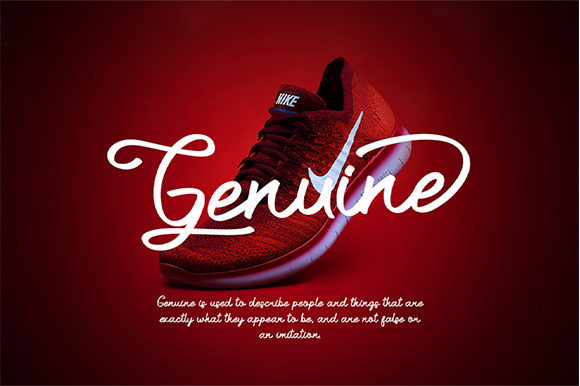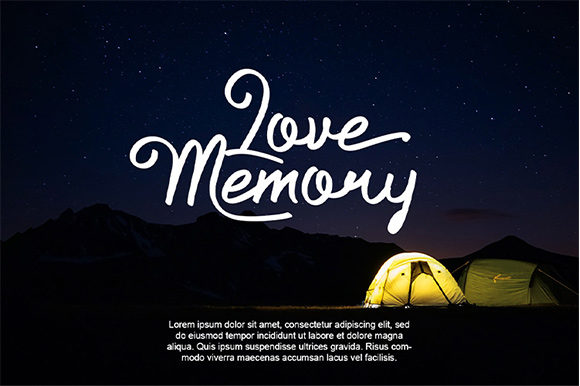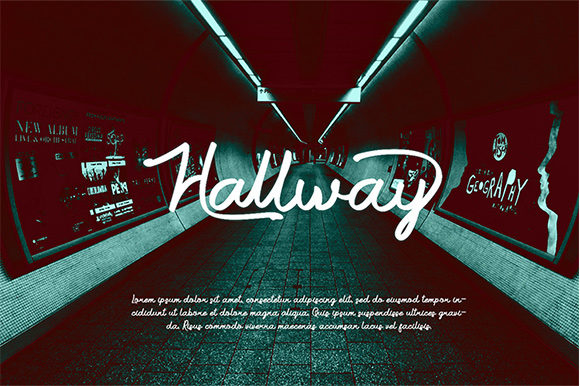
Introduction to Barcelona Rose Font
Have you ever been working on a creative project and suddenly, you’re stuck on the perfect font? The one that captures the essence of your design and makes it truly stand out? For designers, finding the right font can be a game-changer. It’s the difference between a design that’s just okay and one that’s truly exceptional.
| 👤 Author | Nico Muslib |
That’s where the Barcelona Rose Font comes in – a magical script font that’s sure to elevate any design project. With its timeless elegance and authentic calligraphy, this font is a valuable resource for designers looking to add a touch of sophistication to their work. Whether you’re working on a branding project, a wedding invitation, or a creative campaign, the Barcelona Rose Font is a high-quality addition that’s sure to impress.
One of the best things about the Barcelona Rose Font is its versatility. With a transparent background, it can be easily layered over images or used as a standalone element. And, as a free download, it’s accessible to designers of all levels. Whether you’re a seasoned pro or just starting out, the Barcelona Rose Font is a valuable design resource that’s sure to inspire your next creative project.
Key Features of Barcelona Rose Font
- High-quality, elegant design perfect for a creative project
- Designed with a unique, romantic flair, making it ideal for wedding invitations, greeting cards, and other special occasions
Honest Review: Barcelona Rose Font
I recently stumbled upon the Barcelona Rose Font, and I’m excited to share my honest thoughts on this design resource. This beautiful font is perfect for adding a touch of elegance to any creative project.
What works well: ✨ The Barcelona Rose Font boasts a stunning, hand-drawn design with delicate floral elements and intricate details. The high-quality vector graphics make it easy to scale and manipulate, ensuring that your designs will look great on any medium. Additionally, the font’s transparent background makes it a breeze to work with, allowing you to easily combine it with other design elements.
What doesn’t work well: ⚠️ While the Barcelona Rose Font is an excellent choice for many projects, it may not be suitable for all designs. The font’s ornate style can be overwhelming if not used thoughtfully, and it may not be the best choice for projects requiring a clean and minimalist aesthetic.
Overall, I’m impressed with the Barcelona Rose Font. Its unique design and high-quality graphics make it a valuable addition to any design library. Plus, it’s available as a free download, making it an excellent resource for designers on a budget.
- Perfect for: wedding invitations, bridal showers, and other elegant events
- Works well with: watercolor illustrations, floral patterns, and other whimsical design elements
- Not recommended for: minimalist or modern designs
The Barcelona Rose Font is a high-quality, free download that can be used in a variety of creative projects. This versatile font is ideal for designers looking for a stylish and elegant design resource.
The Barcelona Rose Font is ideal for wedding invitations, birthday cards, and other special occasions. You can also use it for branding and marketing materials, such as business cards and brochures.